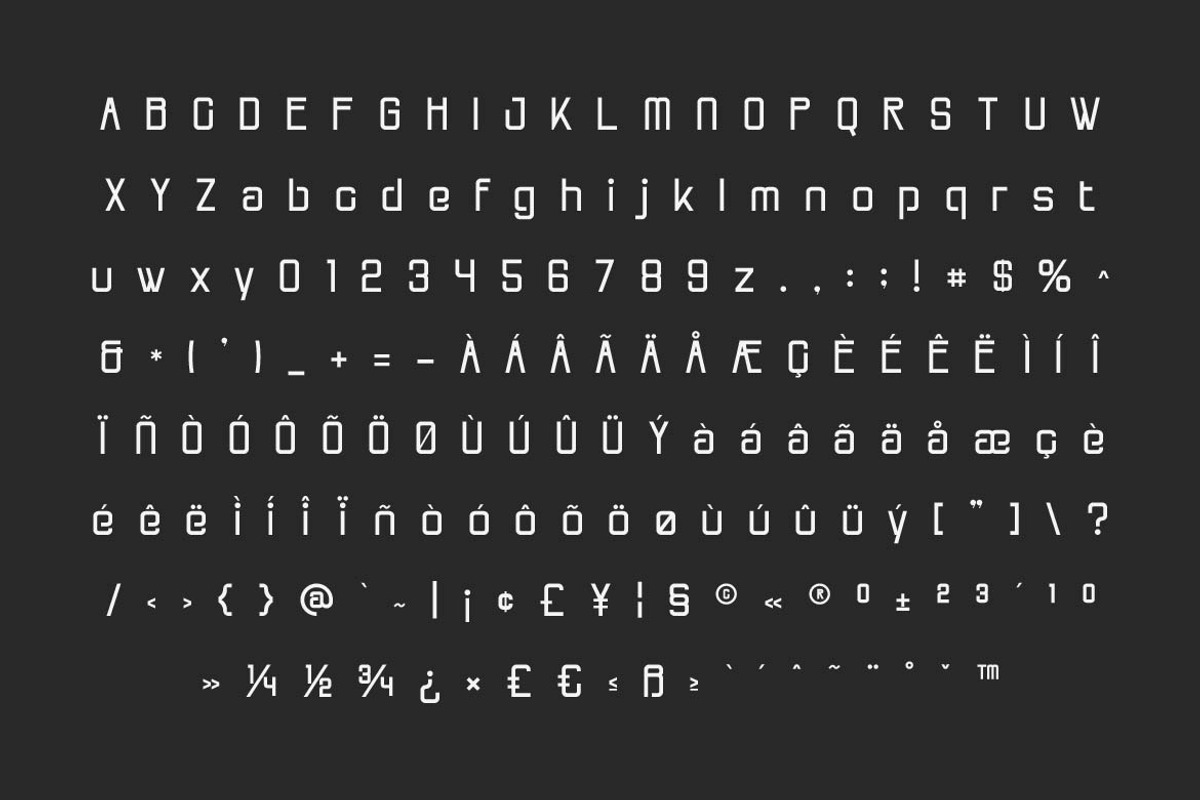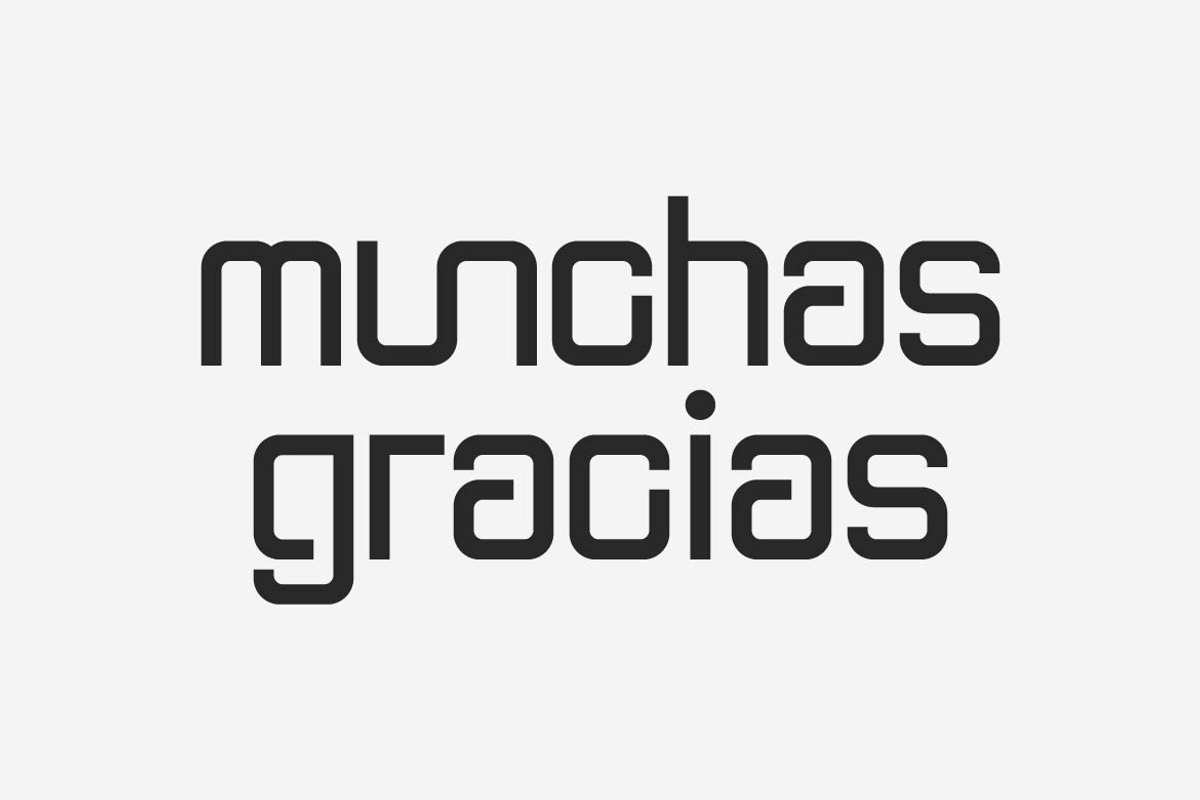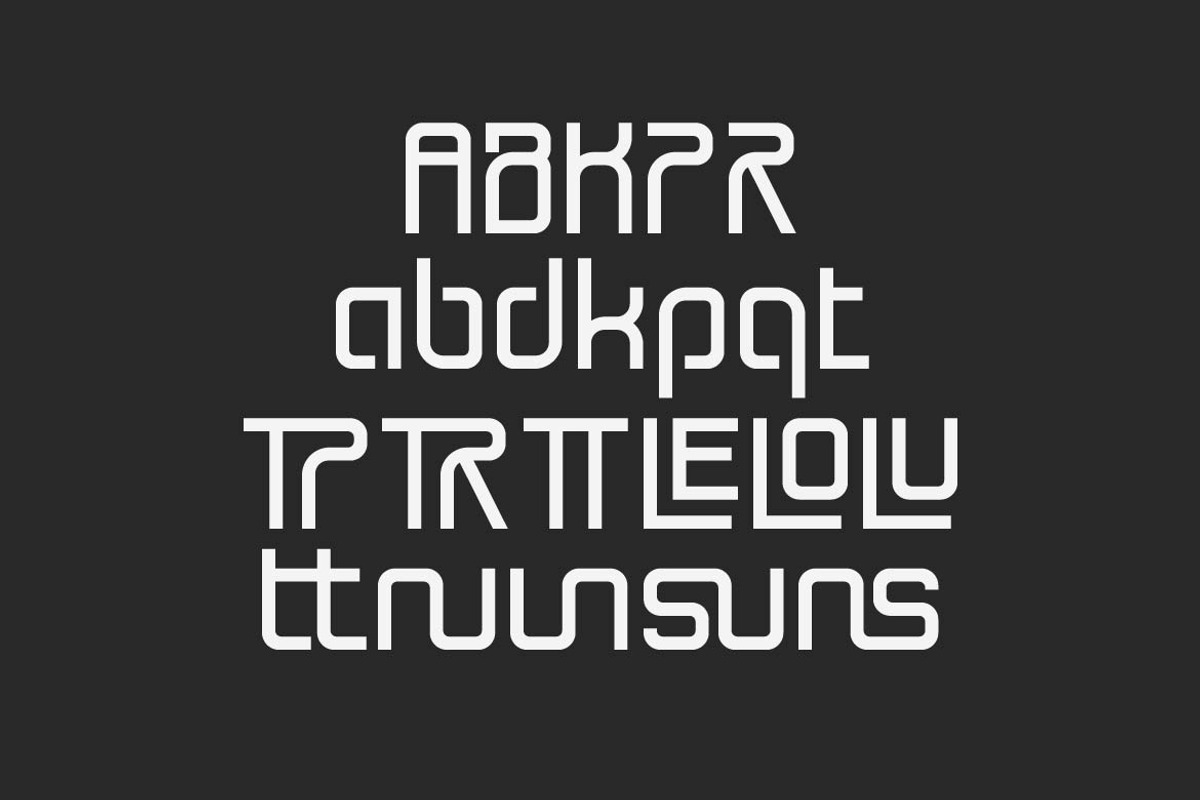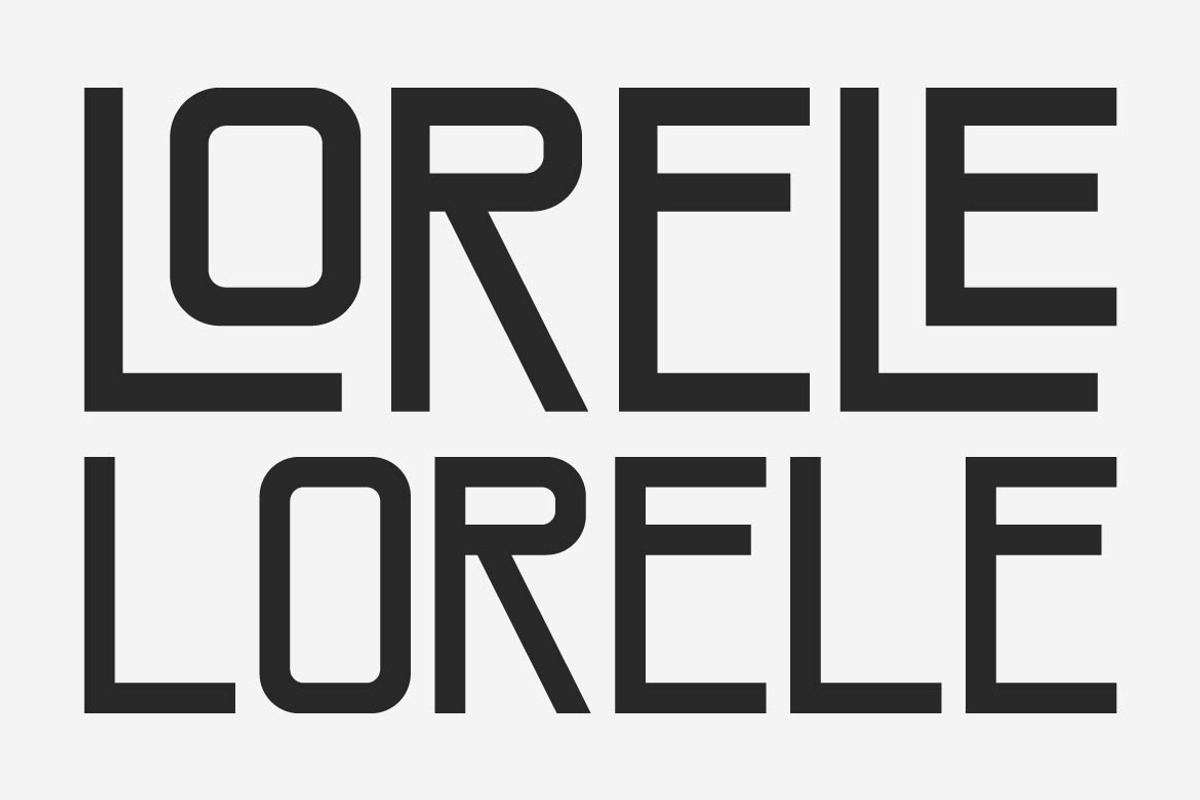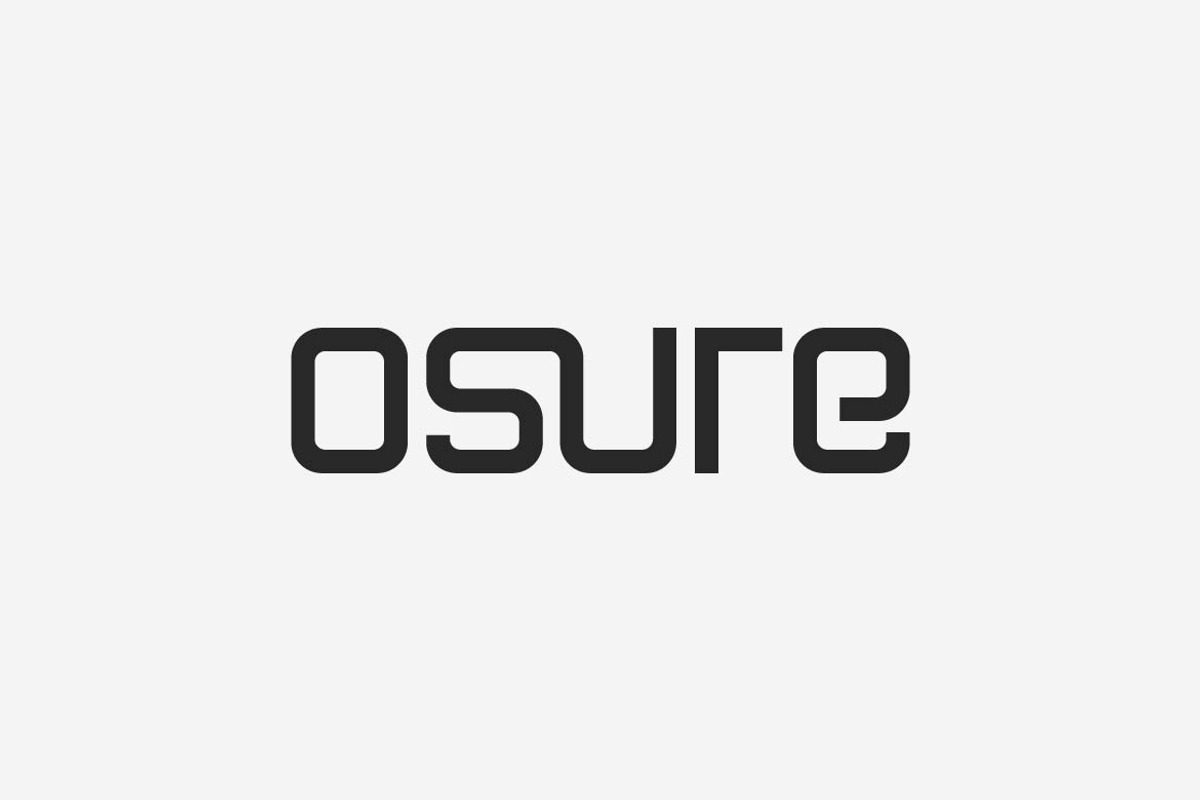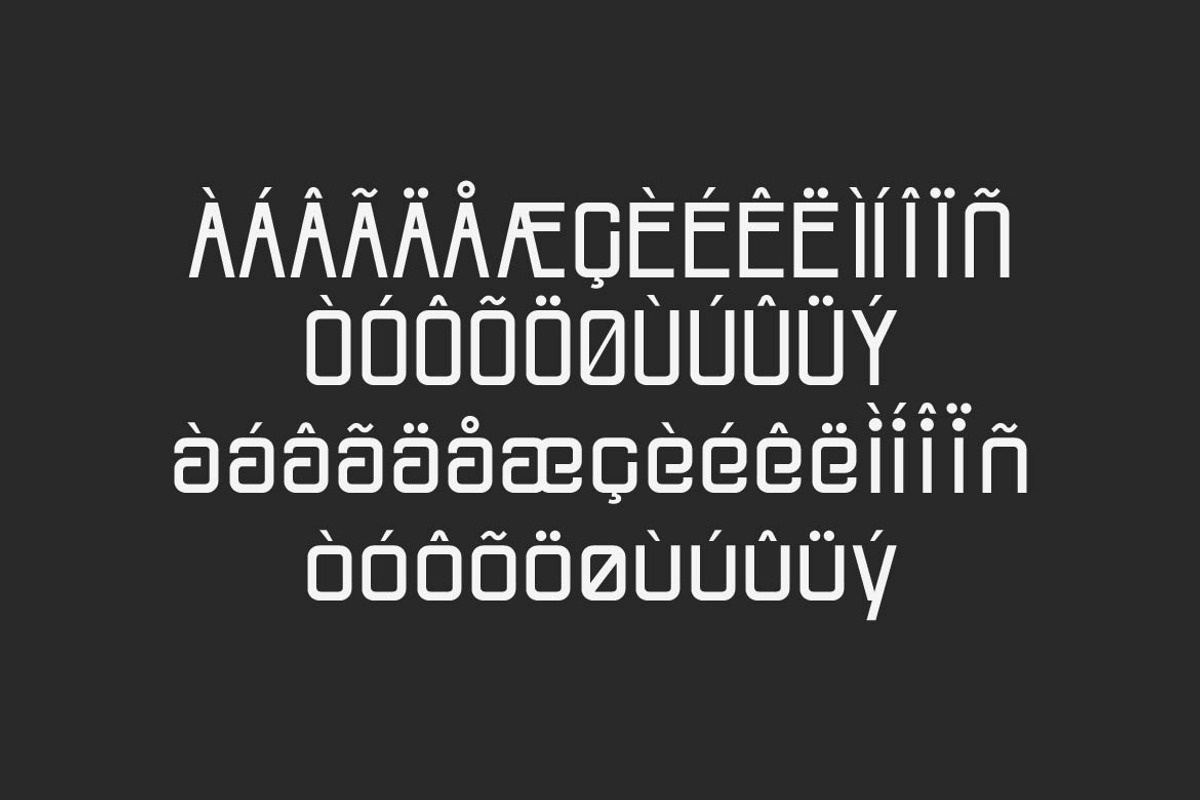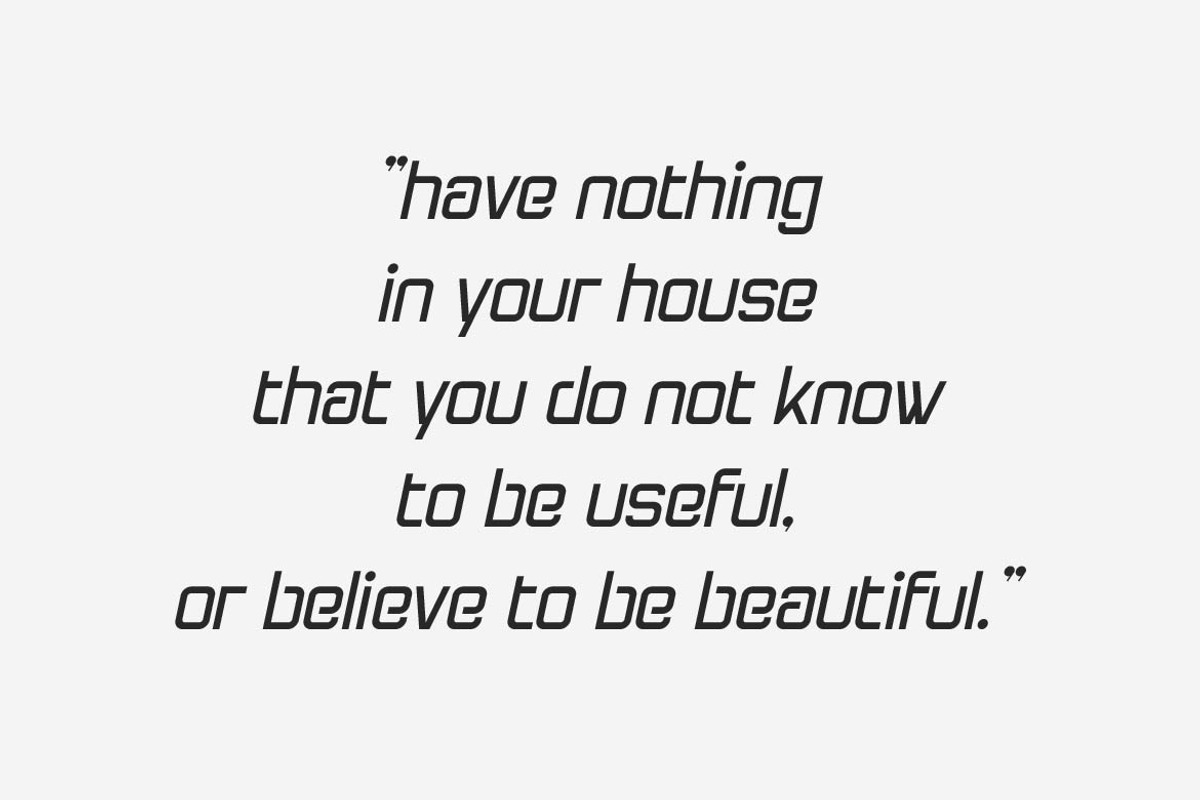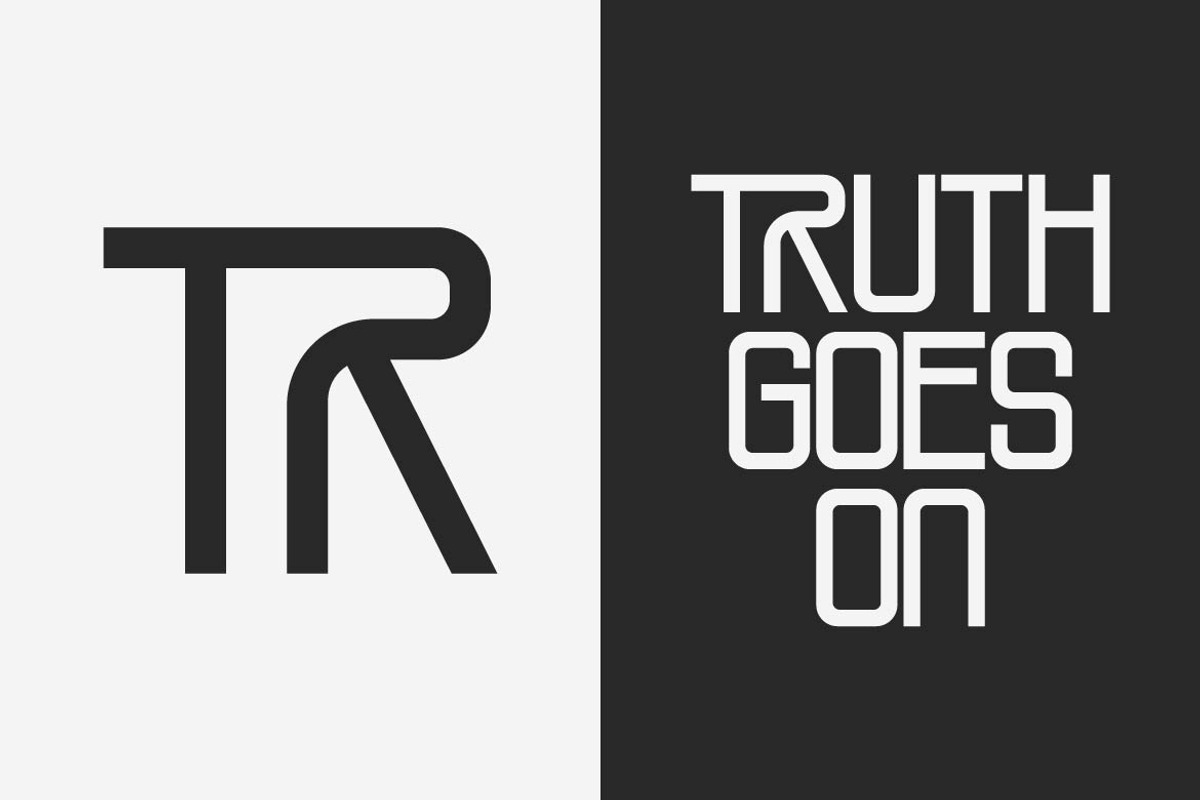
Osore – Sleek Tech Sans
Osure is a minimalist tech-inspired sans serif typeface designed for clarity, precision, and modern digital aesthetics. With clean lines, balanced proportions, and a sleek geometric structure, osure delivers a sharp and professional look tailored for technology-driven design.